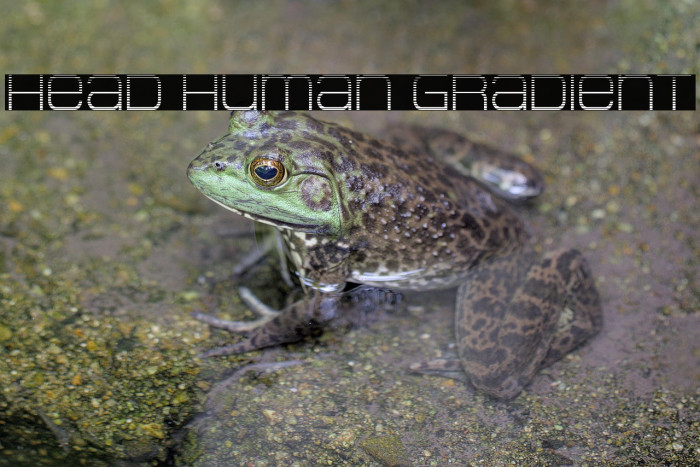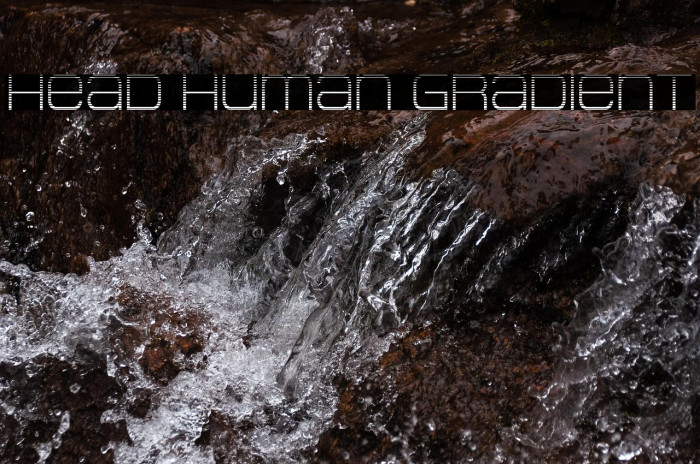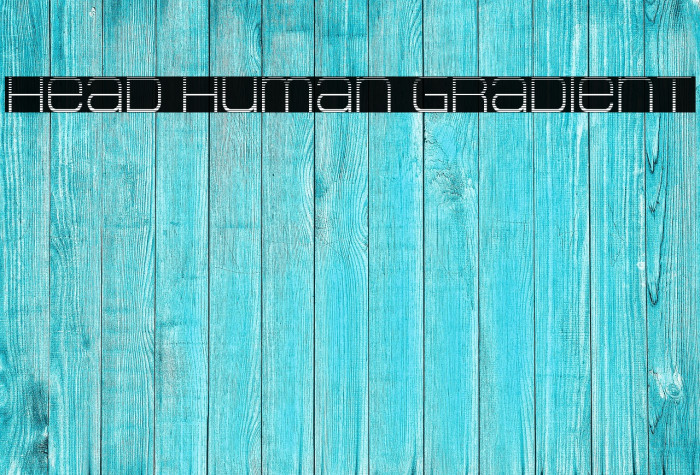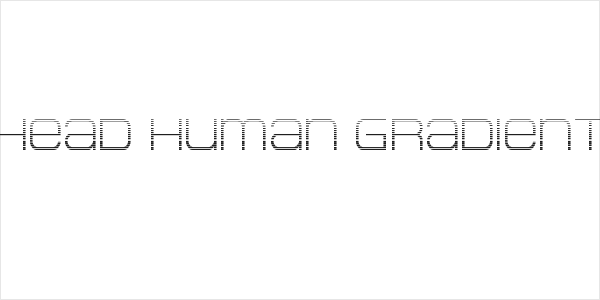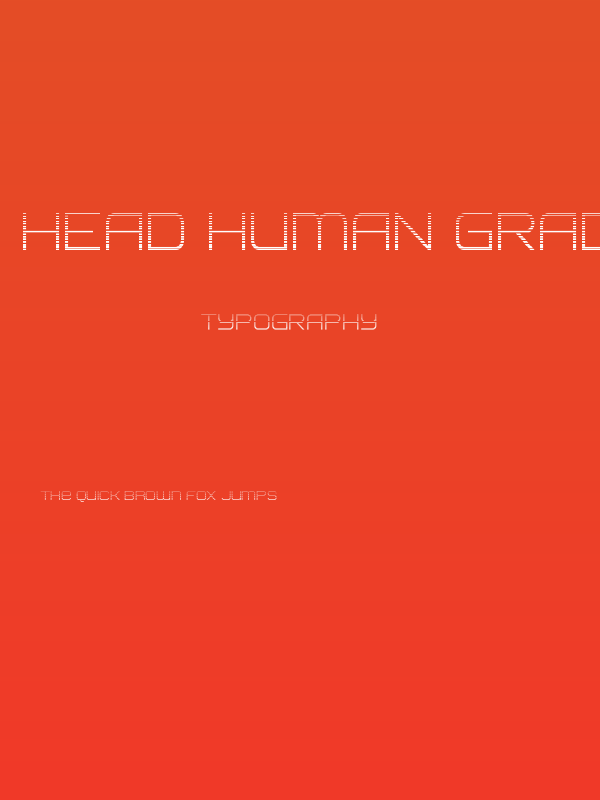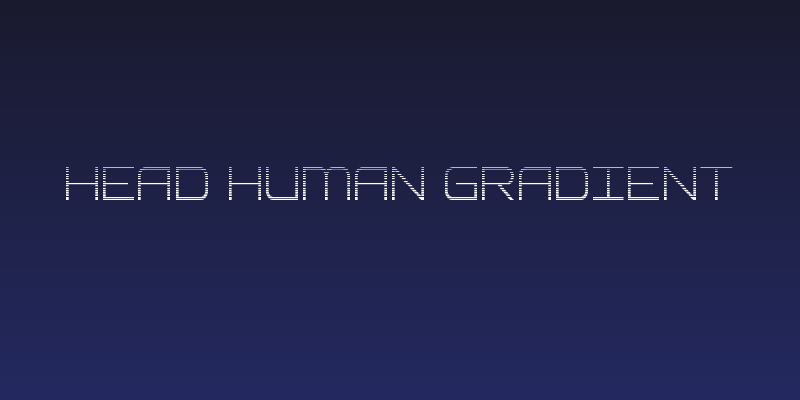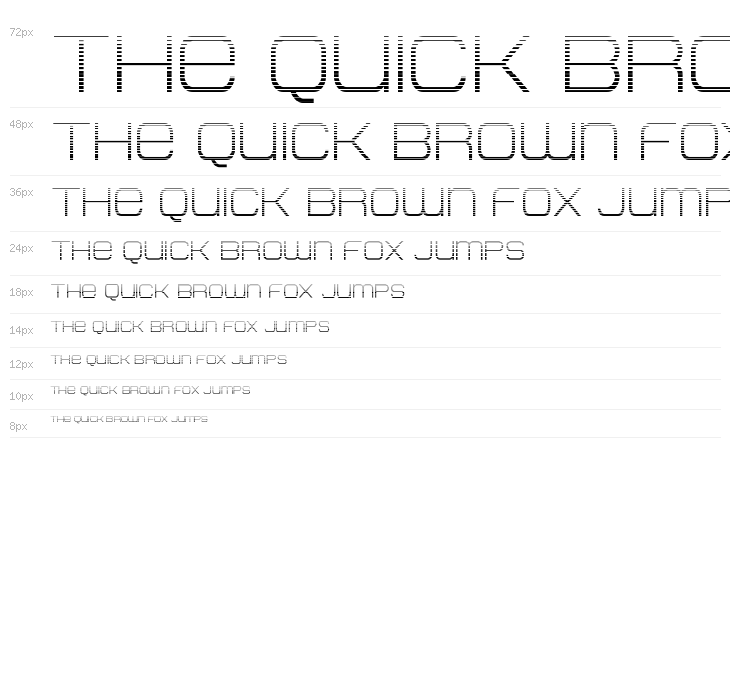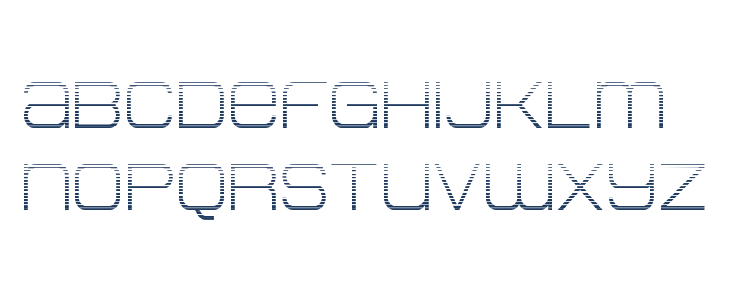
Head Human Gradient Font
Head Human Gradient Description
This font features a futuristic and digital aesthetic, characterized by its segmented and linear design. Each character is composed of horizontal lines that create a sense of movement and modernity. The uppercase and lowercase letters maintain a consistent style, with clean and sharp edges. The numerals and special characters follow the same design principles, ensuring uniformity across all glyphs. This font's unique structure makes it stand out, offering a distinct visual appeal that is both contemporary and tech-inspired.
| Use Case | Logos, Headlines, Digital interfaces |
| Proposed Projects | Ideal for tech-related branding, digital interfaces, futuristic posters, and sci-fi themed projects. |